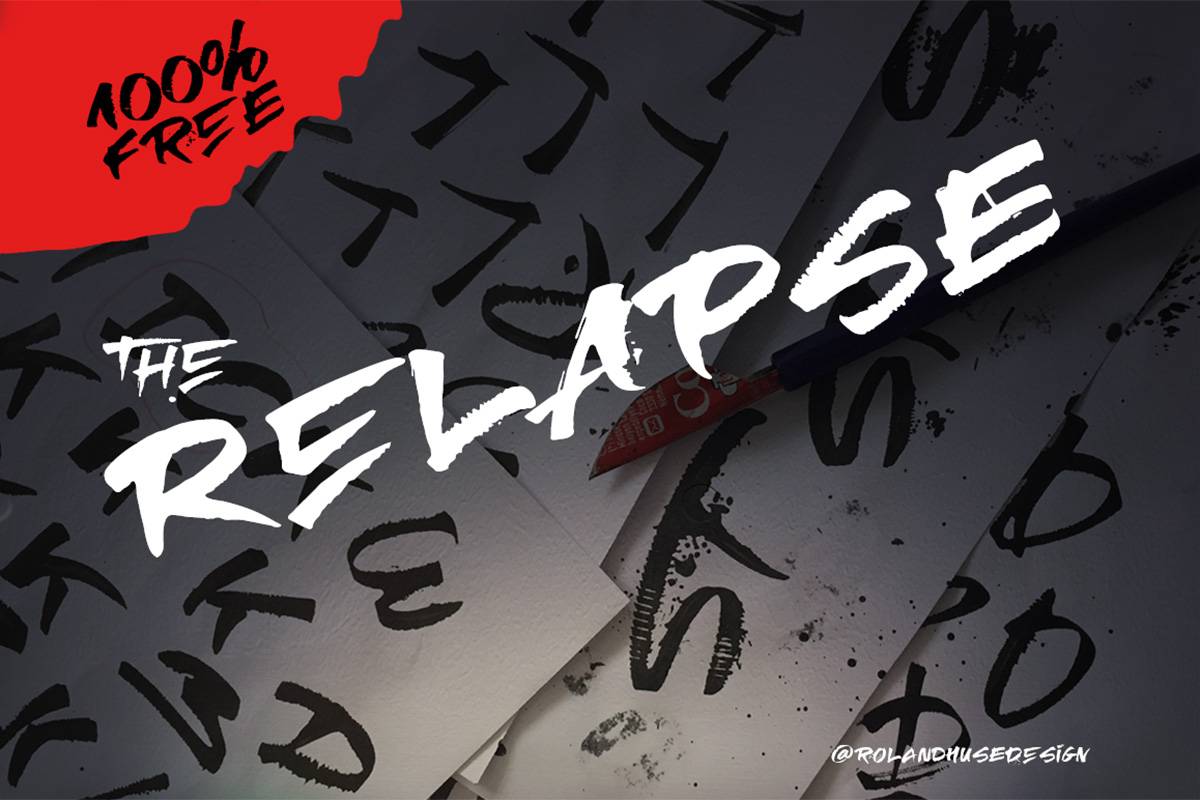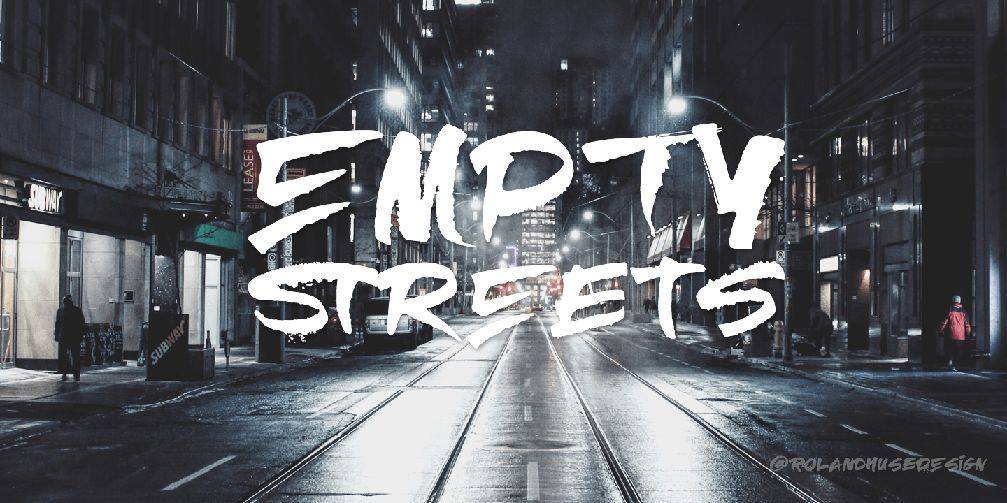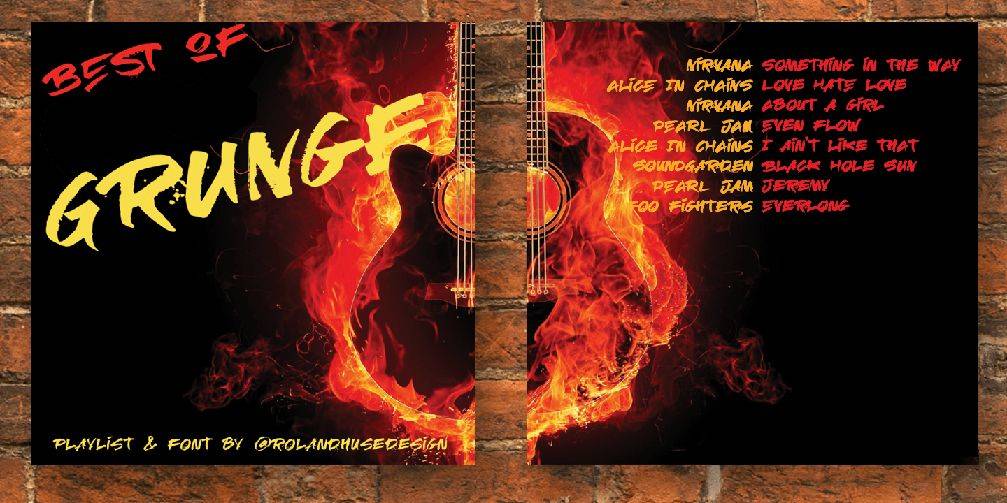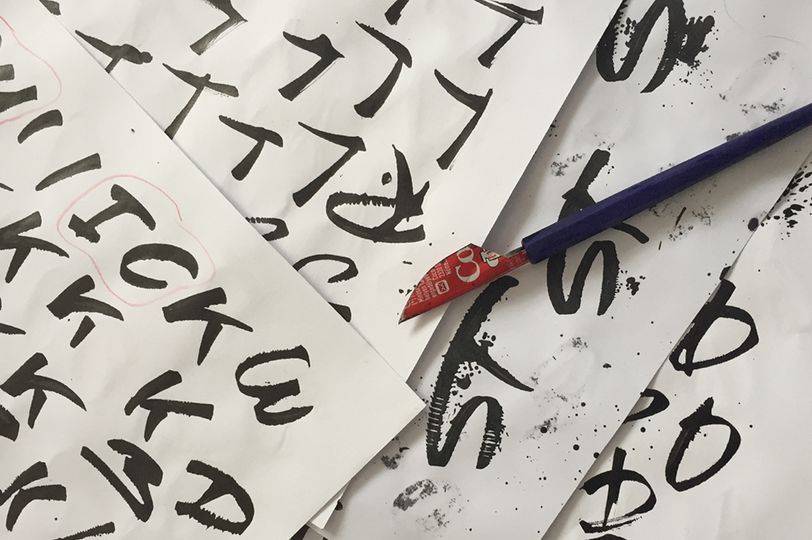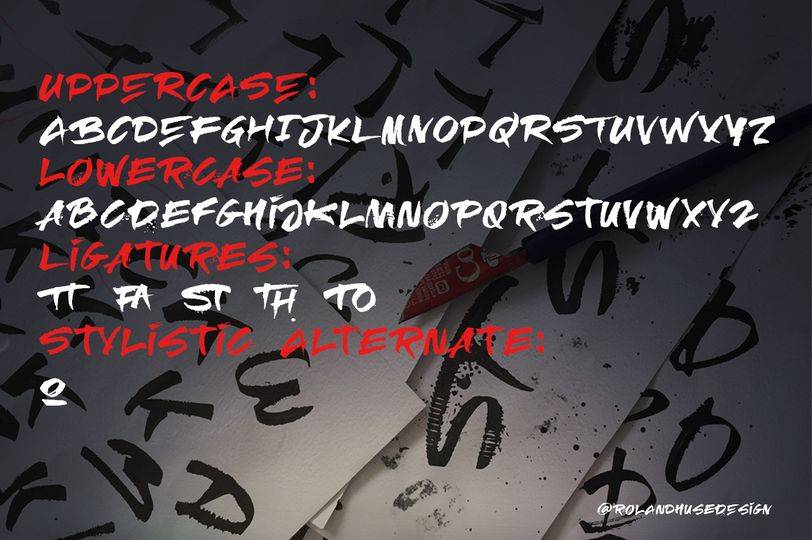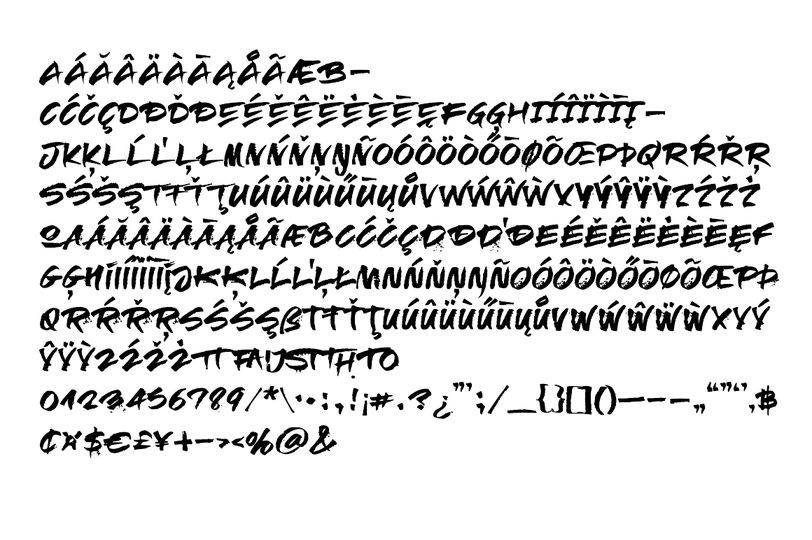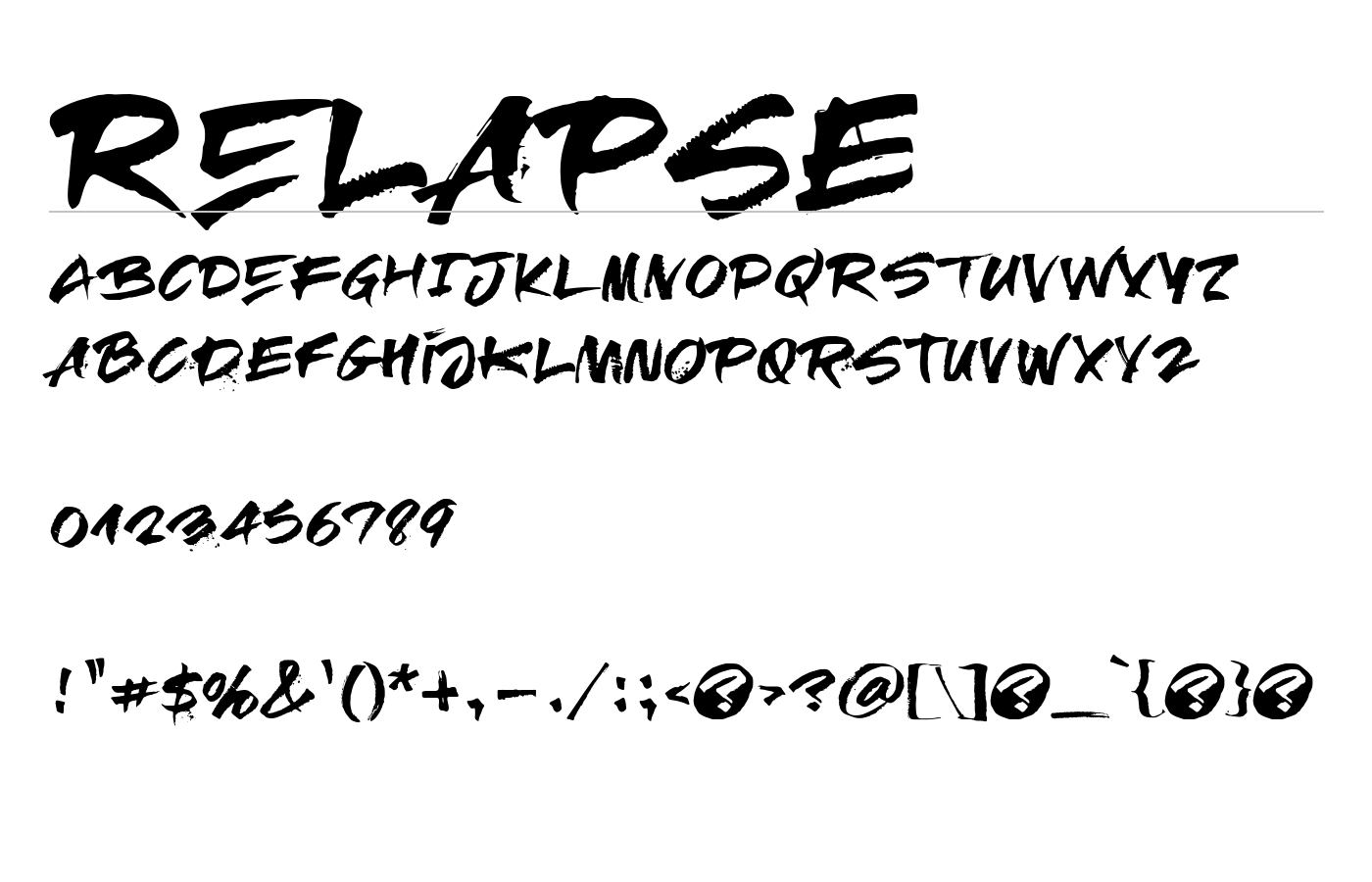
The Relapse is a bold, expressive brush script font with a rough, textured style that gives it a dynamic, hand-painted feel. Its irregular strokes and energetic letterforms make it perfect for designs needing a raw, artistic vibe, such as posters, branding for creative projects, or edgy headlines. This font stands out with its lively personality, bringing a sense of movement and intensity to any visual work.
The Relapse
About The Relapse
| Font family | The Relapse |
| Languages supported | Latin, Thai, Symbols |
| Release date | 2018-04-27 |
| Designer | Roland Hüse |